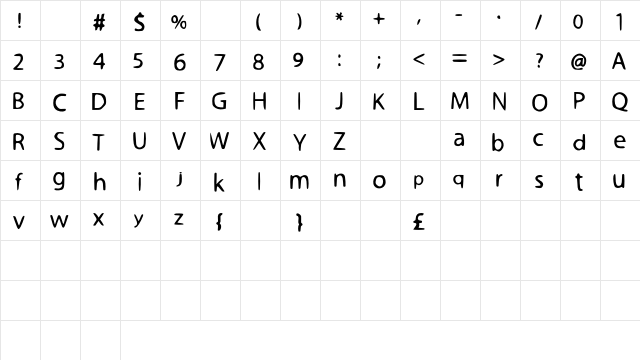
Molt_Gothic_Scruffy Medium
Design Context for Molt_Gothic_Scruffy Typeface
Molt_Gothic_Scruffy has the quiet confidence of well-executed sans-serif typography: versatile, unobtrusive, and dependable at any size.
Font Pairing: Works well alongside a characterful serif or display font that can carry the expressive load while Molt_Gothic_Scruffy handles the functional copy.
Pro Tip: Use Molt_Gothic_Scruffy for UI labels, navigation, and short-form body copy where clean legibility is the priority.